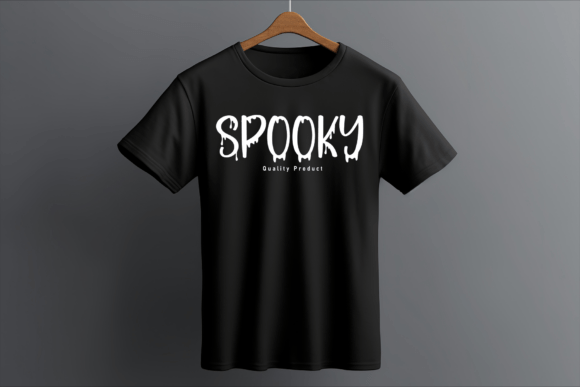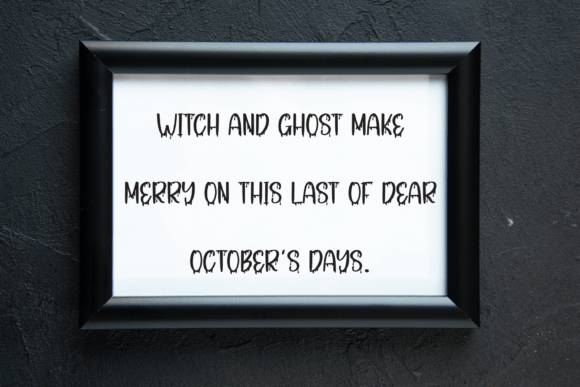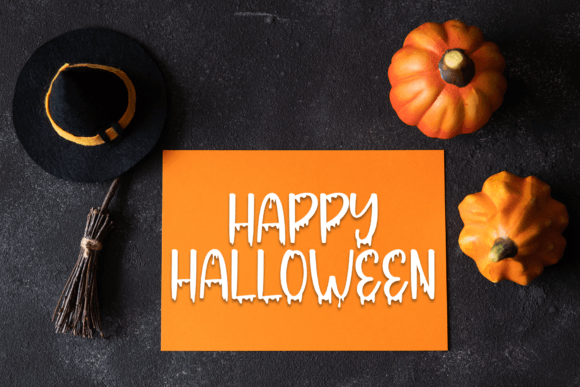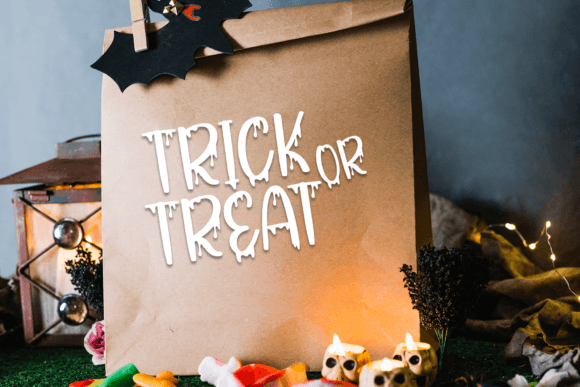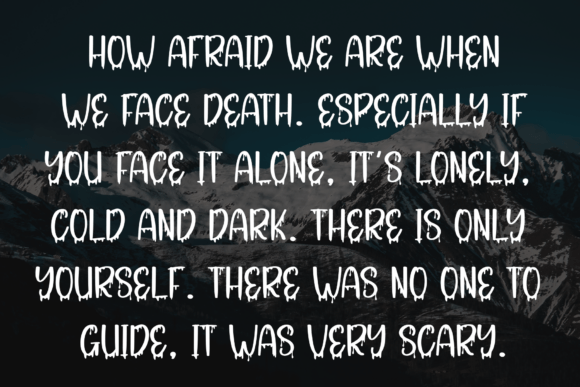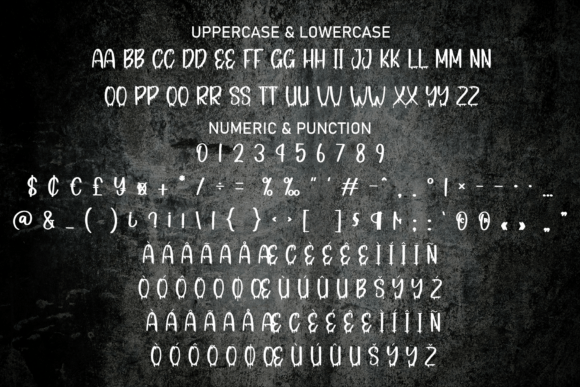
Unleash the Spook: Exploring the Eerie Charm of Ghost Typeface Font
As the witching hour approaches, designers and crafters are on the lookout for the perfect typography to evoke a spine-tingling atmosphere. Look no further than the Ghost Typeface Font, a spooky, handwritten font that drips with eerie elegance. In this article, we’ll dive into the haunting world of Ghost Typeface, exploring its unique characteristics, uses, and why it’s the perfect addition to your Halloween designs or creepy projects.
The Haunting Beauty of Ghost Typeface
Ghost Typeface is a one-of-a-kind font that embodies the essence of the supernatural. Its bold, uneven letters appear to be dripping, as if they’re melting into a puddle of darkness. This distinctive feature gives the font a haunting feel, perfect for designs that require a touch of the macabre. Whether you’re creating Halloween-themed posters, creepy crafts, or eerie invitations, Ghost Typeface is sure to cast a spell on your audience.
What Makes Ghost Typeface So Special?
- Unique Dripping Effect: The font’s dripping letters create a sense of movement, as if they’re oozing or melting into the background. This effect adds a level of eeriness, making it perfect for spooky designs.
- Handwritten Charm: Ghost Typeface boasts a handwritten, organic feel that adds to its charm. The imperfections and irregularities of the letters create a sense of authenticity, making it ideal for crafty, DIY projects.
- Bold and Uneven: The font’s bold, uneven letters demand attention, making it perfect for headlines, titles, and emphasis text.
Uses for Ghost Typeface Font
Ghost Typeface is an incredibly versatile font, suitable for a wide range of design projects. Here are some ideas to get you started:
- Halloween Designs: Create spooky posters, flyers, or invitations that will leave a lasting impression on your audience.
- Creepy Crafts: Add a touch of eeriness to your handmade crafts, such as creepy dolls, haunted houses, or spooky jewelry.
- Eerie Invitations: Set the tone for a haunting party or event with Ghost Typeface invitations that will leave your guests shivering.
- Dark Art and Illustration: Use Ghost Typeface to add a haunting touch to your dark art and illustrations, creating a sense of foreboding and unease.
Tips for Using Ghost Typeface Effectively
To get the most out of Ghost Typeface, follow these expert tips:
- Experiment with Colors: Try pairing Ghost Typeface with bold, vibrant colors to create a striking contrast that will make your design pop.
- Mix and Match Fonts: Combine Ghost Typeface with other fonts to create a unique visual hierarchy and add depth to your design.
- Play with Texture: Add texture to your design by incorporating patterns, gradients, or images that complement the eerie feel of Ghost Typeface.
Ghost Typeface Font is a game-changer for designers and crafters looking to add a touch of the supernatural to their projects. Its unique dripping effect, handwritten charm, and bold, uneven letters make it the perfect choice for Halloween designs, creepy crafts, and eerie invitations. With its versatility and haunting beauty, Ghost Typeface is sure to cast a spell on your audience. So, don’t be afraid to unleash the spook and experiment with Ghost Typeface – your designs will never be the same again!